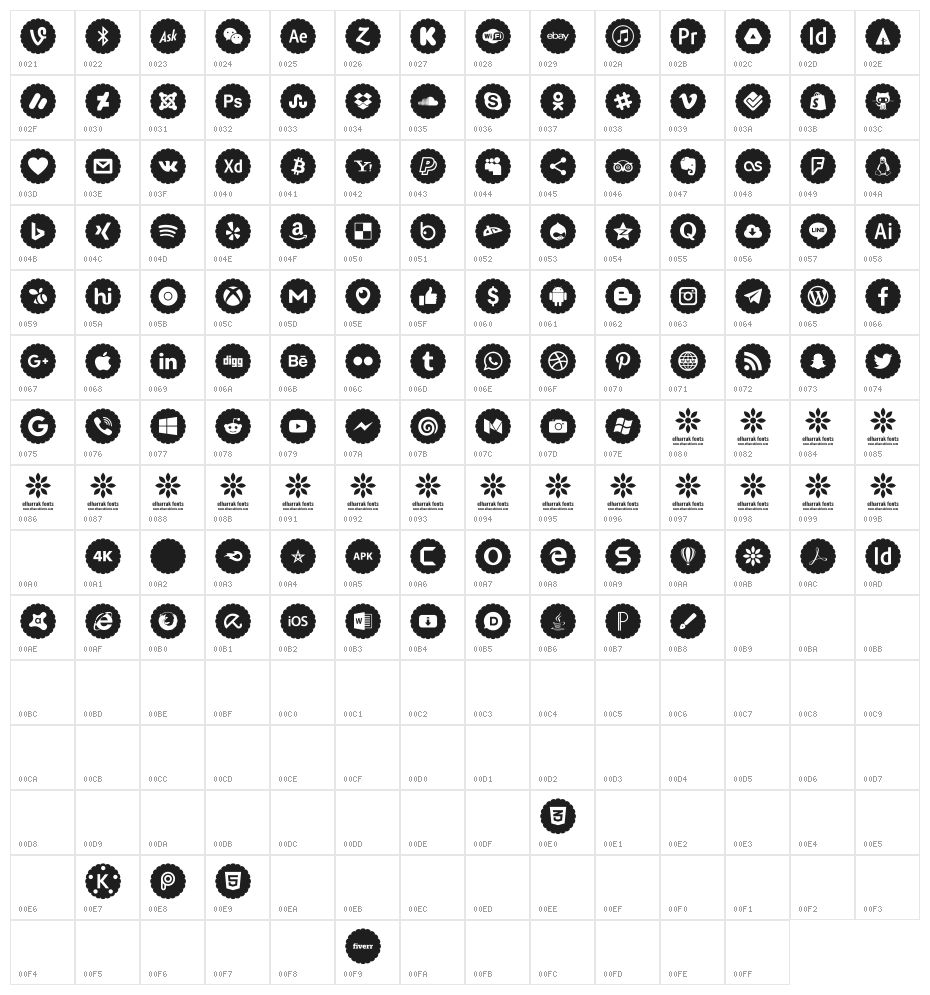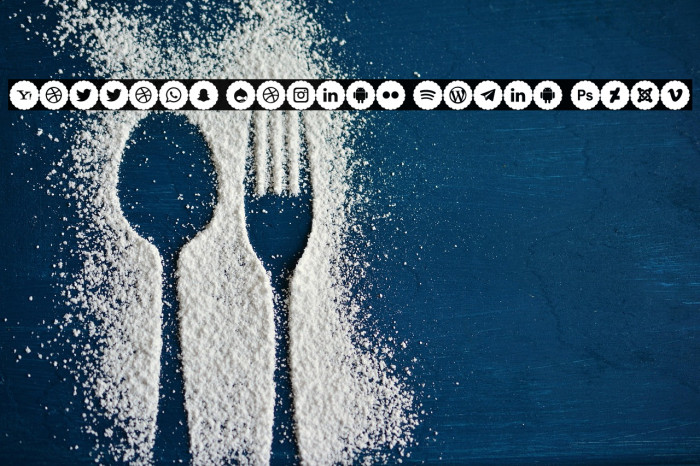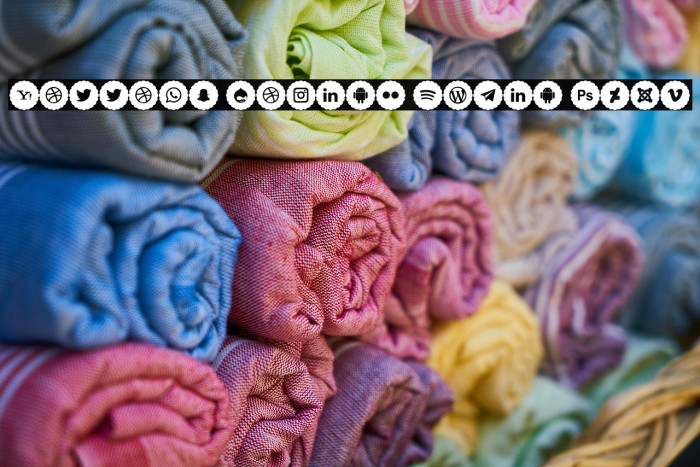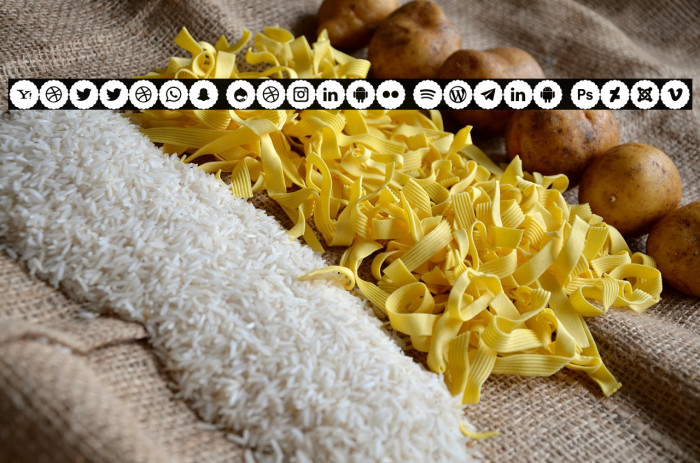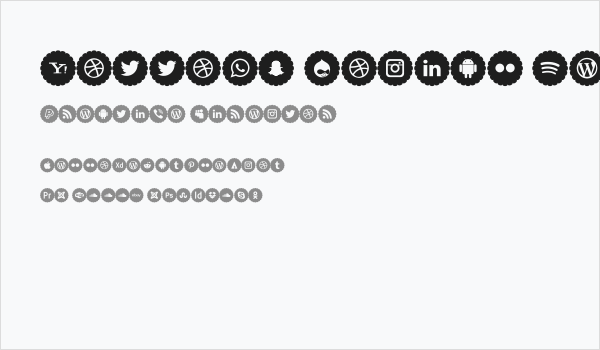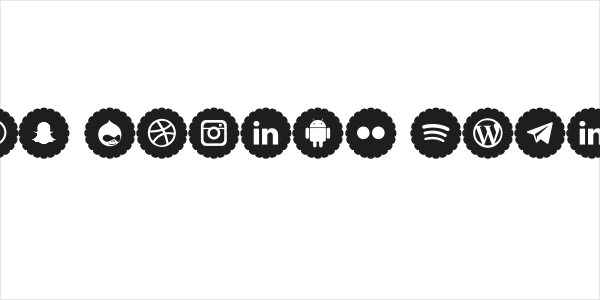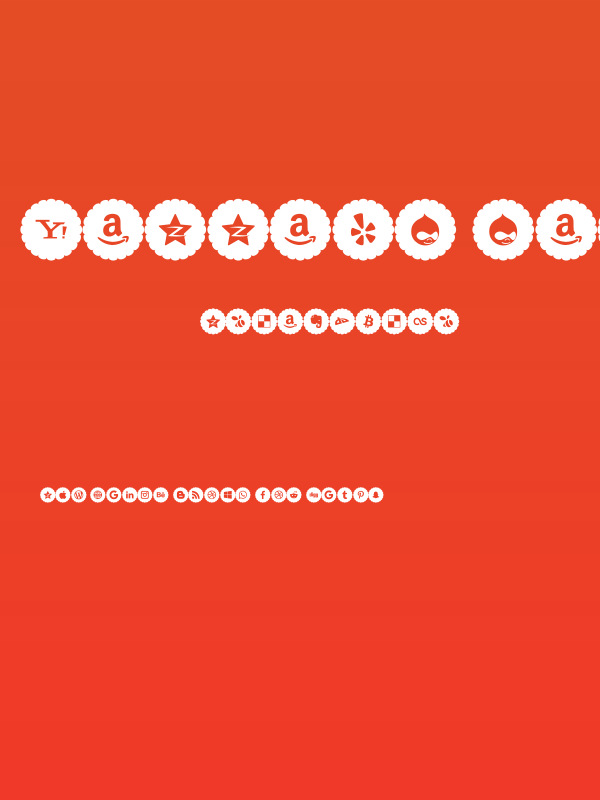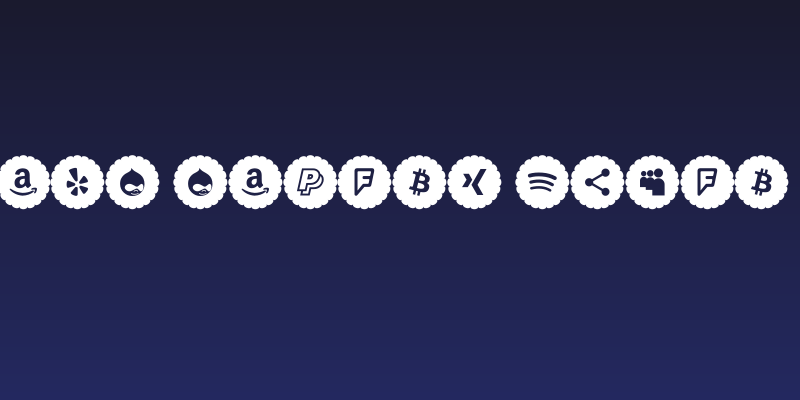
Bottons Social Media 2019 Font
Bottons Social Media 2019 Description
A set of social media and tech brand icons in white, each placed within a solid black scalloped circular badge. The icons are simplified, flat, and highly recognizable, designed for clarity and uniformity across different brands.
| Use Case | Icons, Buttons, UI elements |
| Proposed Projects | Social media link buttons, website footers, app interfaces, digital portfolios, presentations. |